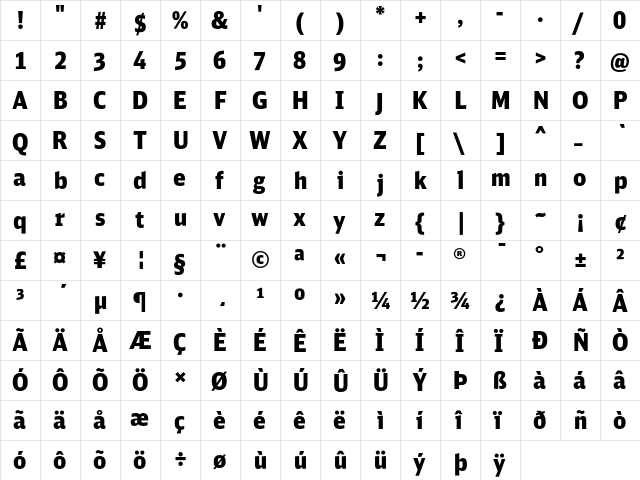
DB Sans Cond Black
Design Context for DB Sans Cond Typeface
DB Sans Cond takes a measured approach to typography — its balanced proportions and neutral character make it a reliable workhorse for both digital and print work. Its narrow stance lets it pack a punch even in space-constrained designs.